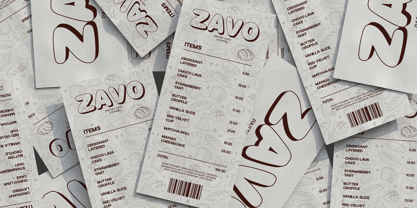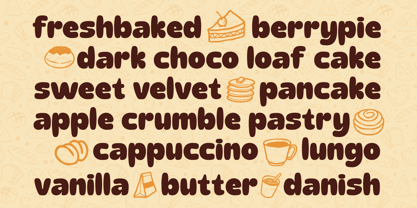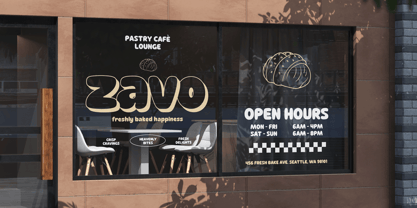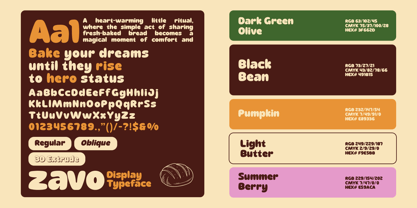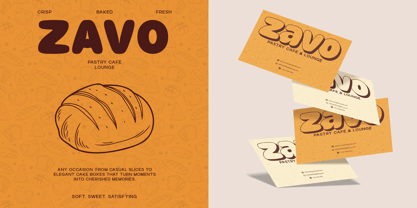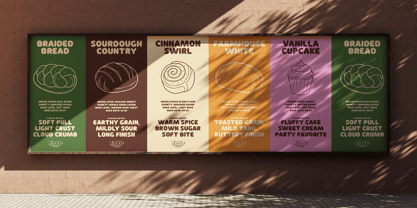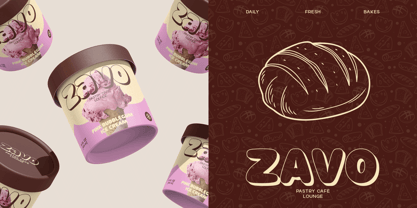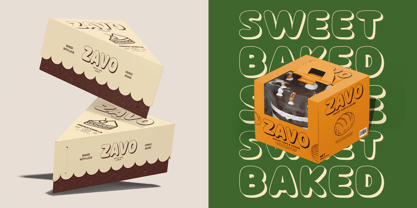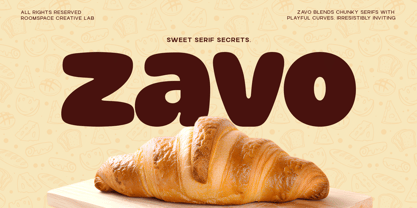
Zavo
Die Schriftfamilie Zavo wurde von Bakhrudin Ja'far entworfen und von Jafar07 veröffentlicht. Zavo enthält 3 Stile und Familienpaketoptionen. Mehr über diese Familie
The tone is cheerful, expressive, and modern, perfect for brands that want to feel welcoming, energetic, and memorable. Zavo brings big letter energy without sharp edges, making it ideal for food brands, cafés, kids products, packaging, and playful digital identities. Zavo Sans a is hunky sans-serif display font created to feel fun, friendly, and full of energy. With its bold weight and rounded shapes, Zavo is perfect for brands that want to stand out while staying warm and approachable. From café branding to packaging and playful headlines, Zavo adds character without sacrificing readability. Font Features : Chunky sans-serif design Uppercase & lowercase Multilingual support PUA encoded Strong display readability Perfect For : Food packaging, café branding, menus, logos, posters, kids brands, social media, and lifestyle visuals.